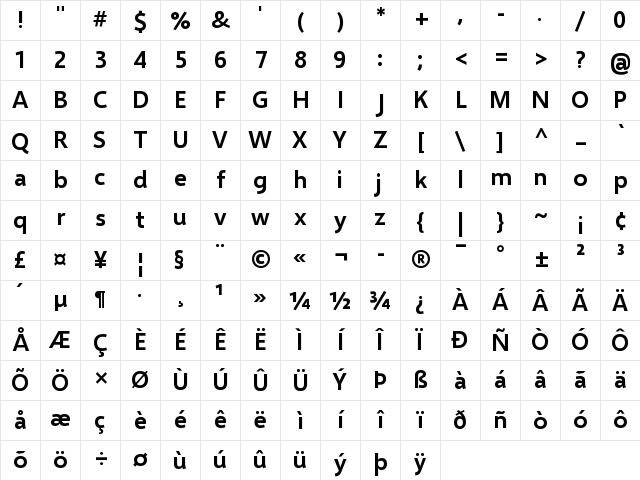
Selawik Semibold
Style: Semibold
Foundry: Microsoft Corporation
Designer: Aaron Bell
Complete Selawik Semibold glyph index. Displaying only characters natively supported by Selawik Semibold font.
Design Context for Selawik
Selawik is a composed and adaptable typeface that performs quietly and consistently across a wide range of design contexts. Its bold stroke weight gives it real presence on the page.